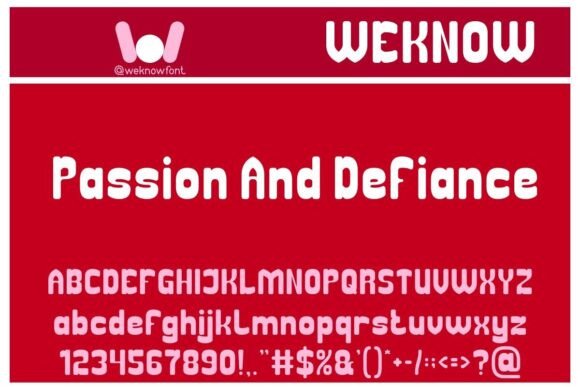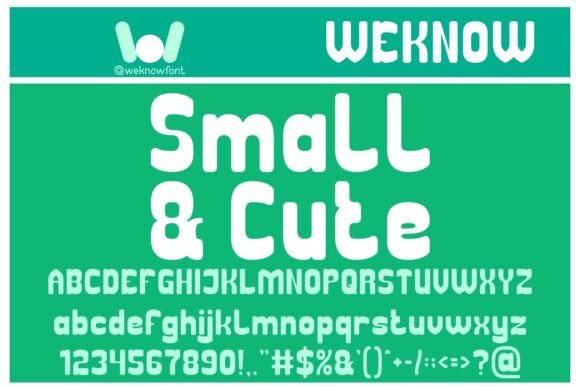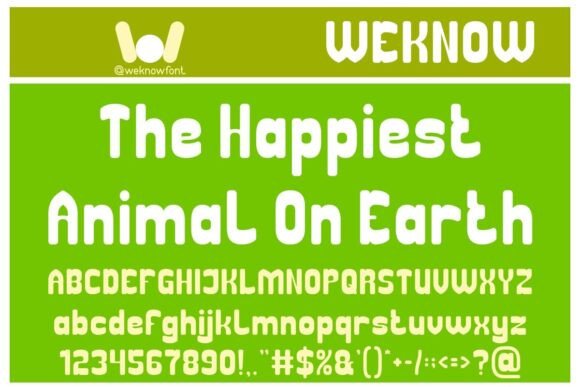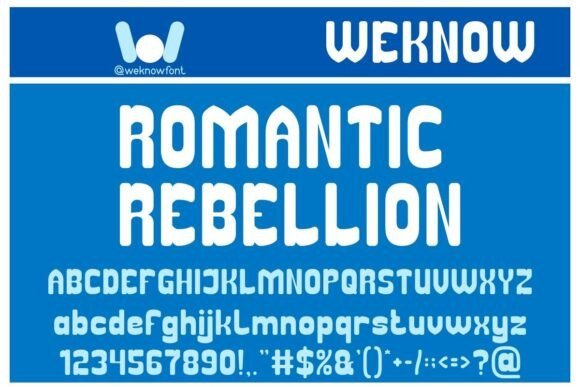
Introduction to Romantic Rebellion Font
Immerse yourself in the captivating world of Romantic Rebellion, an audaciously playful and yet sophisticated display font.
This font brings together an appealing blend of retro-modern flair, encapsulated in lavish round shapes Experience the seamless fusion of its bold and chunky style, filling your design with an irresistible sense of rebellion.